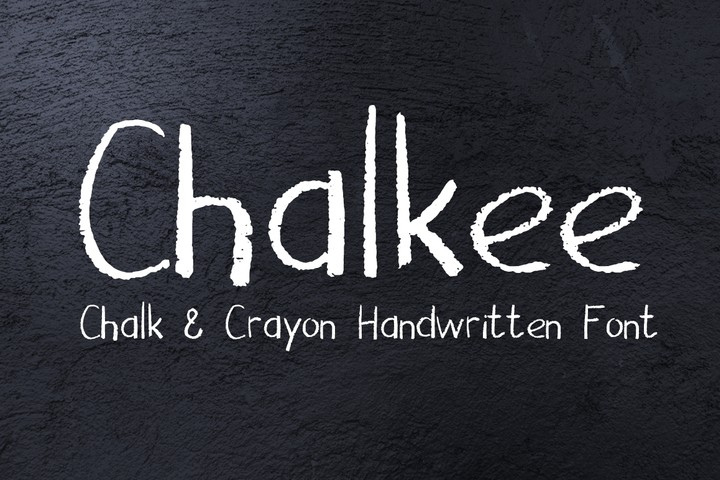
Chalkee - English and Russian Chalk Handwritten Font
Chalkee - English and Russian Chalk Handwritten Font is perfect for educational institution branding, bilingual classroom materials, international school signage, language learning applications, multicultural event promotions, rustic cafe menus, nostalgic restaurant marketing, and cross-cultural communication designs. This authentic typeface excels in applications where educational warmth and multilingual accessibility are essential for creating inclusive and memorable brand experiences that celebrate linguistic diversity.
What makes Chalkee - English and Russian Chalk Handwritten Font truly exciting is its authentic embodiment of classroom nostalgia and multilingual education that captures the tactile experience of chalk-on-blackboard writing and the inclusive spirit of cross-cultural learning environments. The font features genuine handwritten letterforms with chalk texture variations and authentic character imperfections that mirror the natural flow of hand-lettered chalkboard writing in both English and Cyrillic scripts. Its educational personality and bilingual character create an immediate sense of learning warmth and cultural inclusivity that resonates with audiences seeking authentic educational experiences and multicultural communication solutions. The typeface's pedagogical heritage and linguistic versatility make it perfect for brands wanting to convey education, inclusivity, and connection to the universal experience of classroom learning and international communication.
The Chalkee - English and Russian Chalk Handwritten Font family includes both Latin and Cyrillic character sets with authentic chalk textures, complemented by educational alternates and classroom-inspired decorative elements. The font offers comprehensive multilingual support with educational symbols, handwritten ligatures, and authentic styling details that enhance its classroom aesthetic. Additional graphic elements including chalk dust effects, blackboard patterns, educational motifs, and academic ornaments provide designers with complete branding tools rooted in educational tradition and multilingual communication culture.